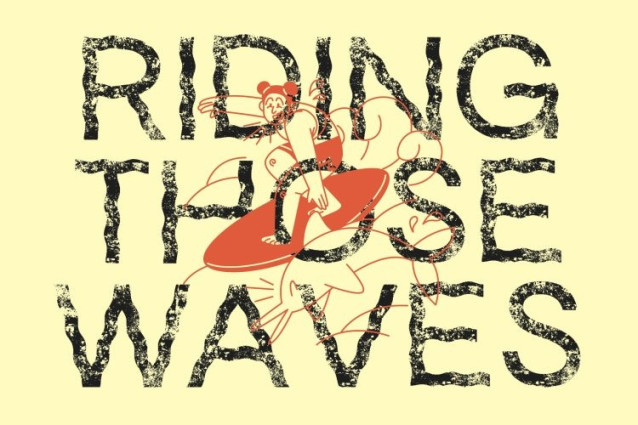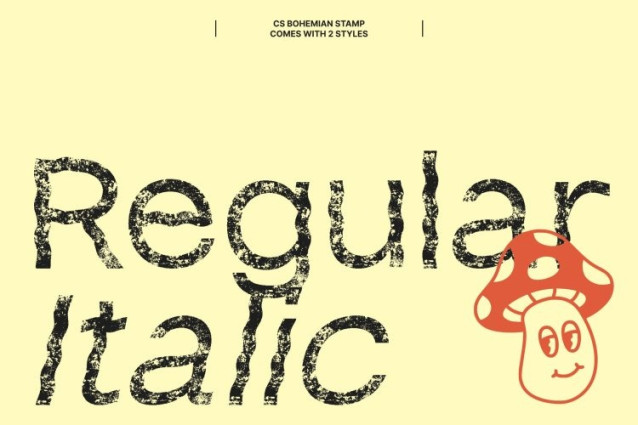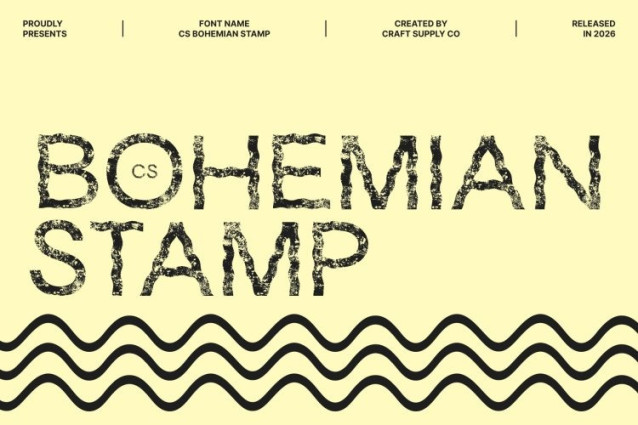
CS Bohemian Stamp Font
CS Bohemian Stamp Font This is a modern sans-serif font that fuses sleek contemporary structure with bold psychedelic forms, enhanced by a distinctive stamp texture. Its clean sans-serif foundation keeps the design grounded and readable, while dynamic curves, twists, and experimental shapes bring a vibrant, mind-bending personality. The stamped finish adds a tactile, print-inspired depth that intensifies its visual impact.
Dynamic Forms with Vintage Grit
The energetic letterforms feature flowing distortions and unconventional silhouettes, creating movement and rhythm across every word. The added stamp texture introduces subtle imperfections, giving the font a raw, handcrafted feel like ink pressed onto paper at the height of a retro psychedelic era.
Designed for Creative Statements
This font is perfect for music posters, festival branding, album covers, streetwear graphics, event promotions, and experimental visual identities. Its combination of modern simplicity, psychedelic flair, and textured detailing ensures your designs feel expressive, fearless, and unforgettable.
A Fusion of Futuristic Vision and Retro Soul
Blending forward-thinking typography with vintage print character, this font delivers a distinctive aesthetic that feels both nostalgic and contemporary. It’s the perfect choice for projects that demand creativity, attitude, and a strong visual presence.